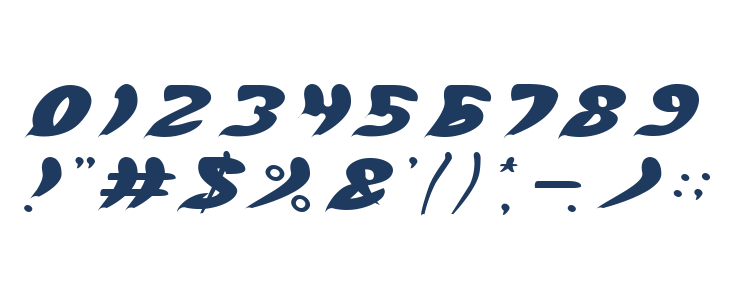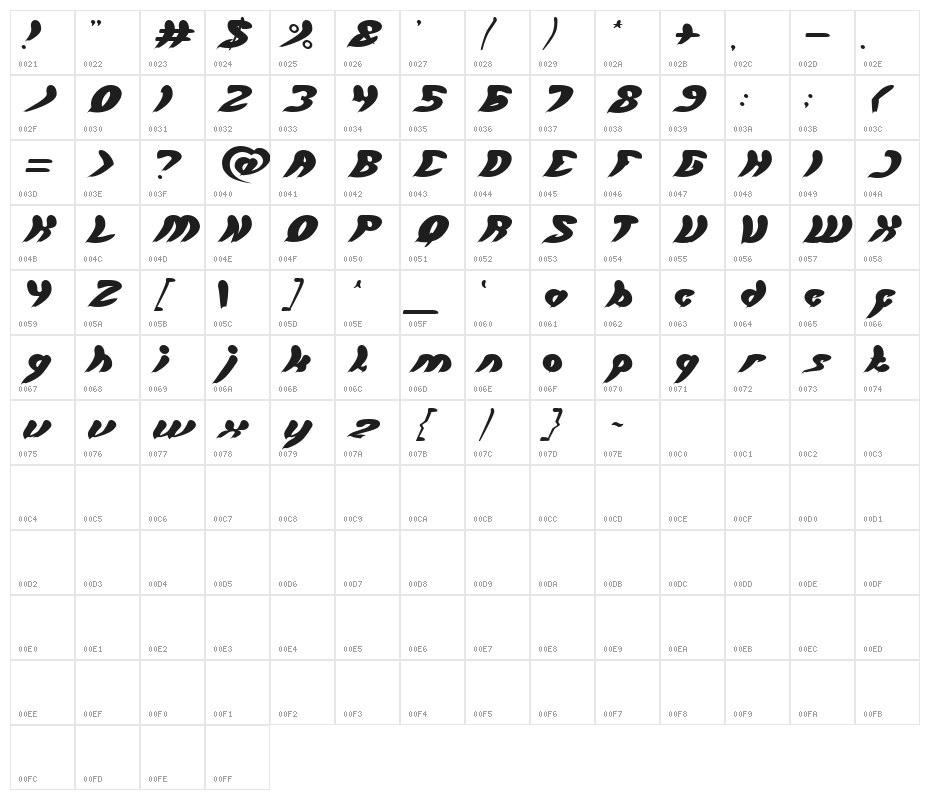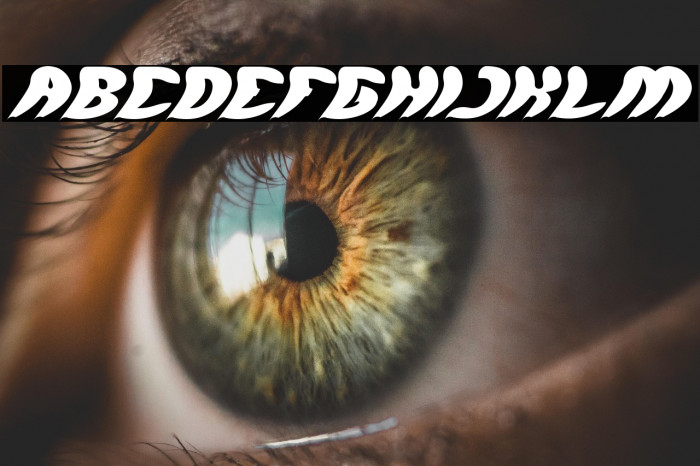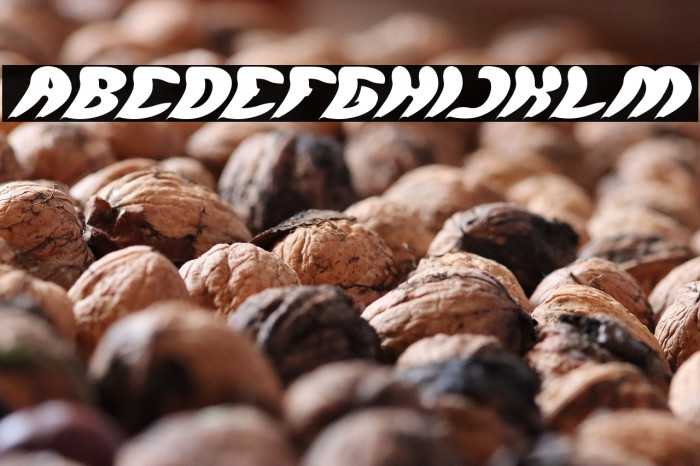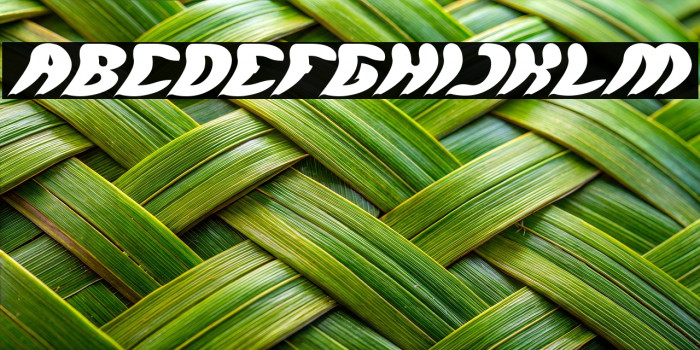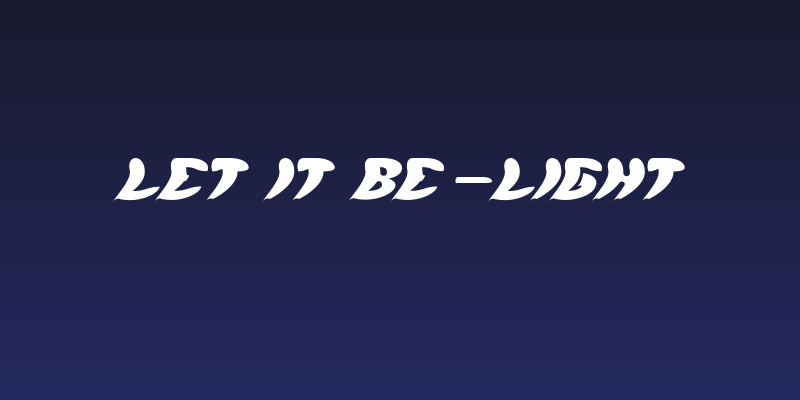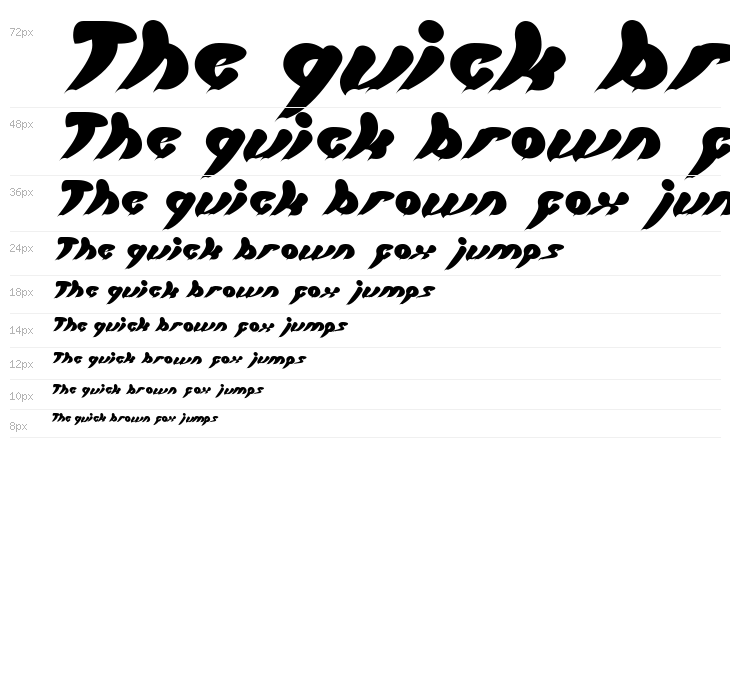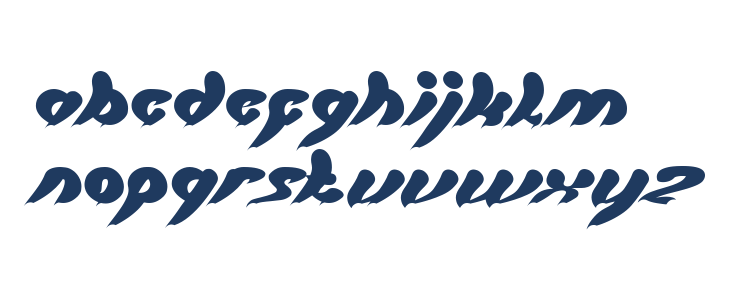
let it be-Light Font
let it be-Light Description
This font features a bold, flowing script style with a dynamic and energetic appearance. The characters are designed with a sense of movement, resembling brush strokes that give it a lively and artistic feel. The uppercase letters are particularly striking, with exaggerated curves and sharp edges that create a sense of drama. The lowercase letters maintain the same fluidity, ensuring consistency throughout the typeface. Numbers and special characters are crafted to match the overall aesthetic, making it suitable for creative and expressive design projects.